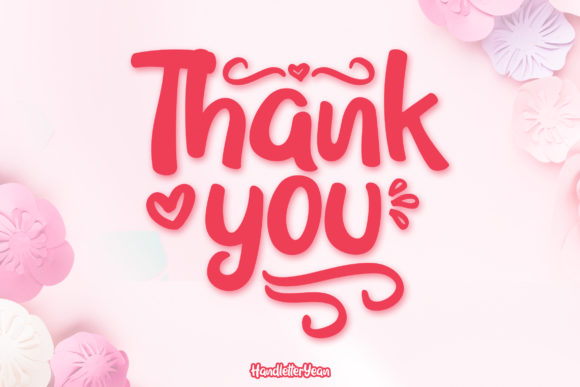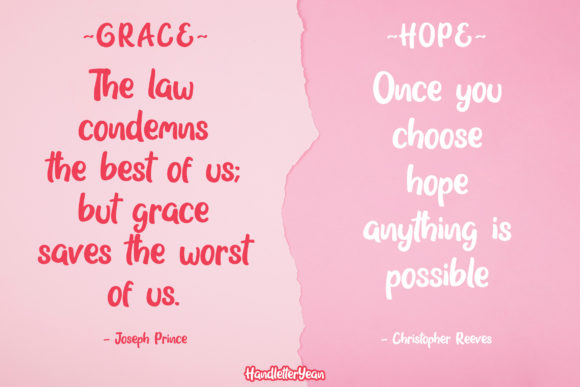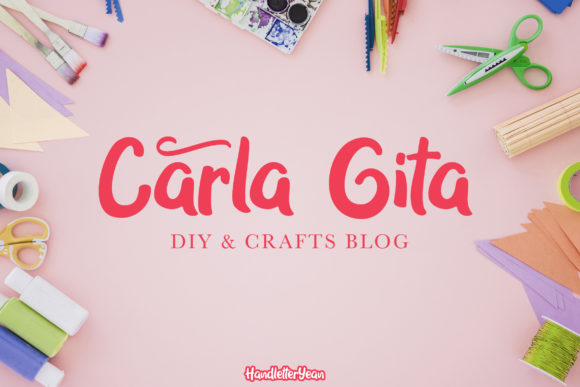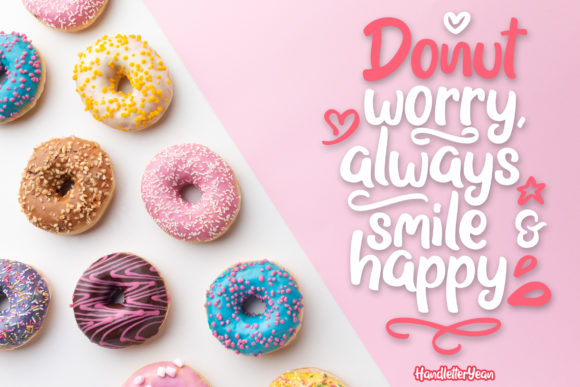
Grace & Hope Font
About Grace & Hope Font
Grace & Hope is a beautiful handwritten font. It features doodles and underlines. This eye-catching font will take your designs to the next level!
Fall in love with its authentic feel and use it to create gorgeous wedding invitations, beautiful stationary art, eye-catching social media posts, and cute greeting cards.